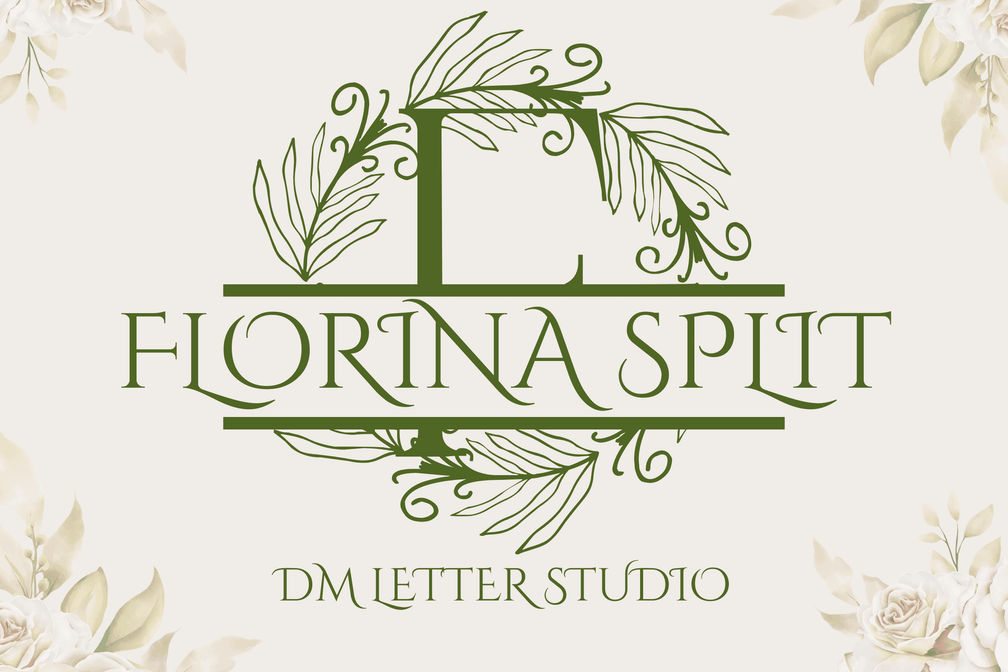
Florena Split Monogram
Florena Split – Elegant Split Monogram Font with Hand-Drawn Floral Accents
Florena Split is a sophisticated serif split monogram font that features uppercase initials with a clean horizontal divide—perfect for adding names, words, or personalized messages. Paired with delicate floral illustrations, it brings timeless romance and botanical charm to every design, ideal for Cricut projects, weddings, and feminine branding.
Split Monogram Style: A horizontal space divides each letter, allowing easy customization for names and phrases.
Floral Accents: Soft, hand-drawn botanical details add elegance and natural beauty.
Timeless Serif Base: Structured serif letterforms provide refined, classic aesthetics.
Ideal For: Wedding monograms, Cricut personalization, spring branding, product tags, invitations, and handmade packaging.